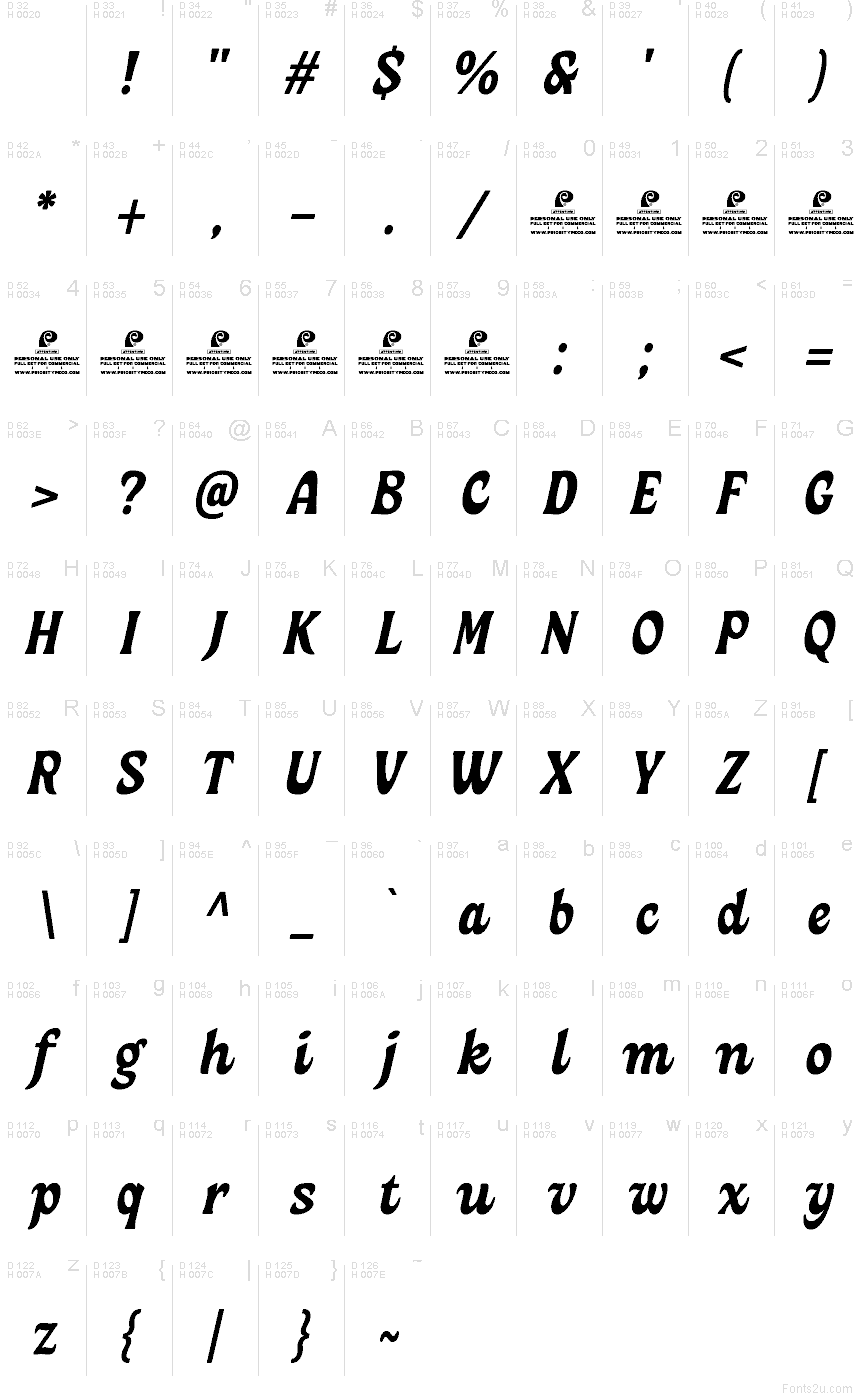
Ombre Nouveau, by Prioritype Co., is a free Art Nouveau-inflected retro display font with a lush, leaning rhythm. The letters feel poured rather than drawn, with swollen curves, deep scoops, and soft tapering that give the whole wordmark a poster-era elegance without turning fussy.
It fits branding for cafes, cocktail menus, beauty packaging, magazine cover lines, and music or theater title cards where that flowing, old-world glamour can lead the mood. As a free font, it also suits short headlines, monograms, and logo sketches, because the broad curves and slanted stress give even a few letters a distinct silhouette.